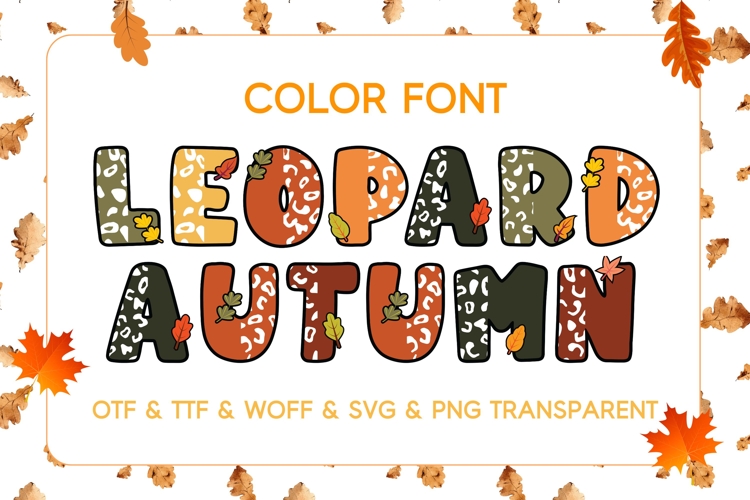
Immerse yourself in the playful charm of the Leopard Autumn color font, meticulously crafted in a Doodle Alphabet style.
This exquisite font boasts a unique aesthetic, blending cute visuals with radiant hues for an eye-catching appeal that is unmissable. Perfect for injecting a dash of fun into any design, Leopard Autumn brings both versatility and vibrancy to the table.
Add it to your creative toolkit and let your designs sparkle with its ineffable mix of cuteness and brightness. This isn’t just a font – it’s a delightful romance between playful doodles and tantalizing color, ready to make your projects stand out.